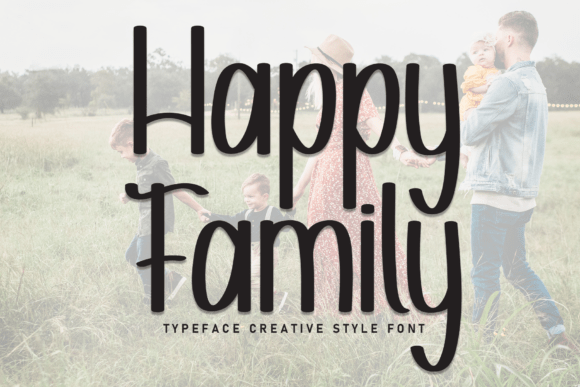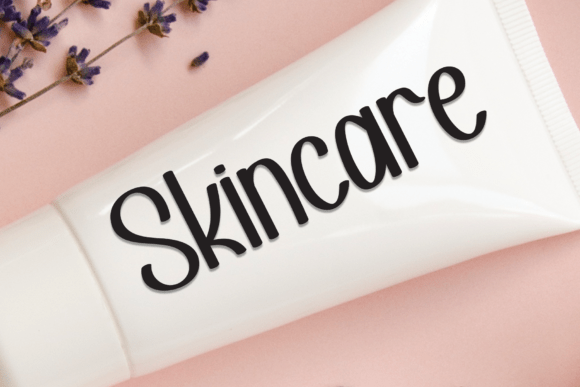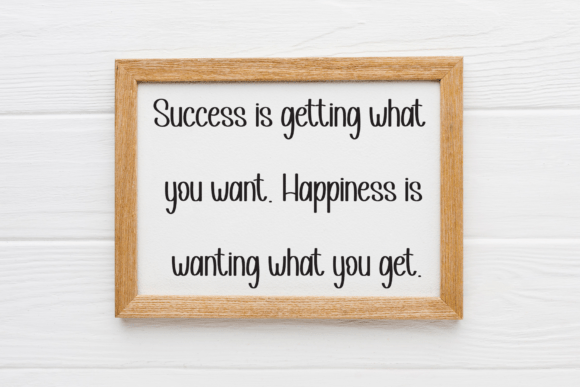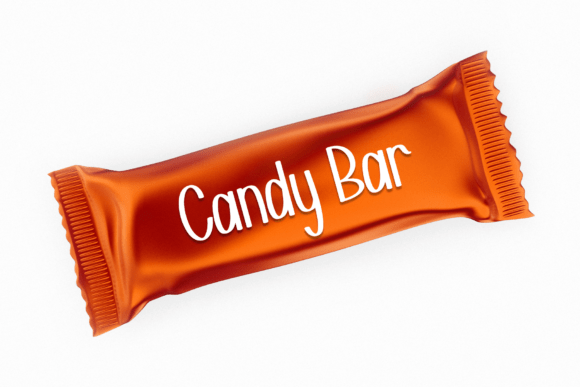
Happy Family Font
About the Happy Family Font
Meet Happy Family Font, a stunning font that brings a touch of elegance and professionalism to any design. Introducing a charmingly playful handwritten display font, delicately seasoned with delightful sweetness and warmth. It’s effortlessly cute and jolly characteristics make it a perfect choice for penning down intimate wedding invites or jotting love notes on greeting cards. Drape your designs with a dash of fun and let your creativity leap and twirl on the edges of this whimsical typeface.
Happy Family Font is ideally suited for headlines, short-form text on invitations or greeting cards, and branding elements where a friendly, approachable feel is desired. Its playful nature makes it perfect for children’s products, bakery logos, or crafting projects. Avoid using it for body text or lengthy passages; its informal style is not conducive to readability in extended blocks of copy. It also isn’t suitable for UI elements where clarity and legibility are paramount.
Pair Happy Family Font with a clean sans-serif like Lato or Open Sans for a balanced contrast, allowing the playful script to stand out. Alternatively, a simple serif font such as Merriweather can add a touch of classic elegance to offset its whimsical nature. For a more modern feel, a geometric sans-serif like Futura would create a striking juxtaposition.
The font’s core personality is undeniably cheerful and approachable, conveying warmth and a sense of childlike wonder. It is best used in projects seeking to evoke feelings of happiness and nostalgia.